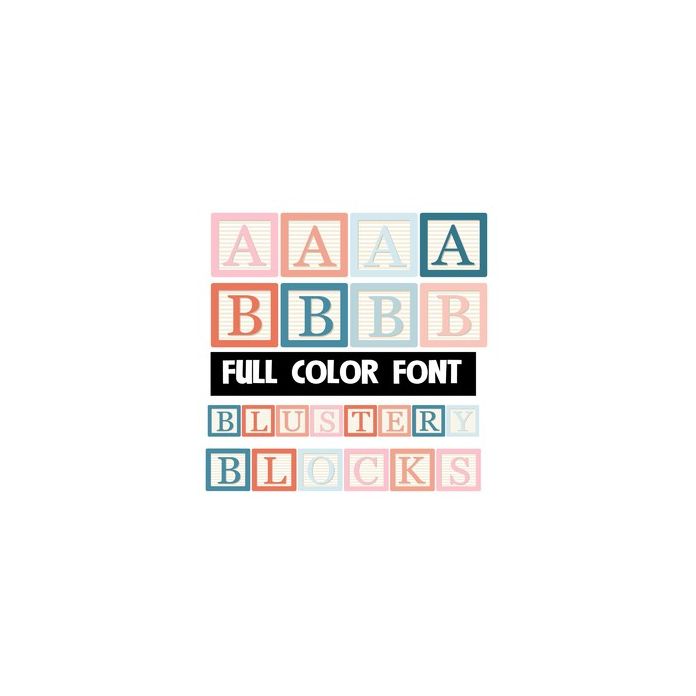
This full-color font features children's blocks in a blustery color palette. There is a second upper and lower alt case you can access through your system's character map. This font works best for titles, displays, posters and more. Please note color fonts will show as black in non compatible programs. This font type is compatible with Silhouette Studio.